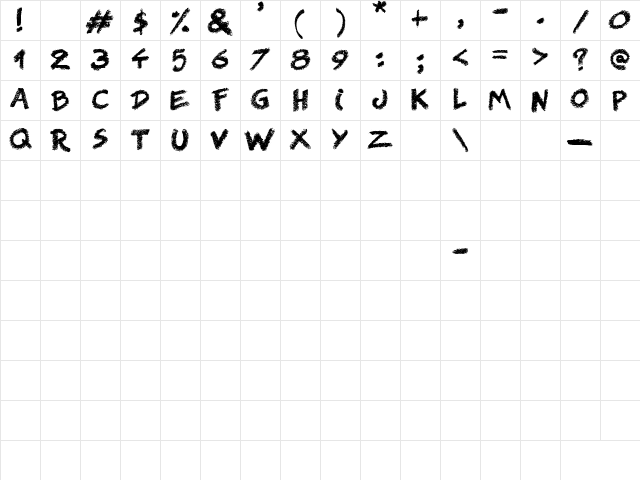
Right Chalk Regular Free Font
Right Chalk Regular
Designer: IMAGEX
Design Context for Right Chalk
Right Chalk is a composed and adaptable typeface that performs quietly and consistently across a wide range of design contexts.
Pro Tip: Use Right Chalk in both headline and body roles to test its range before committing to a single application.